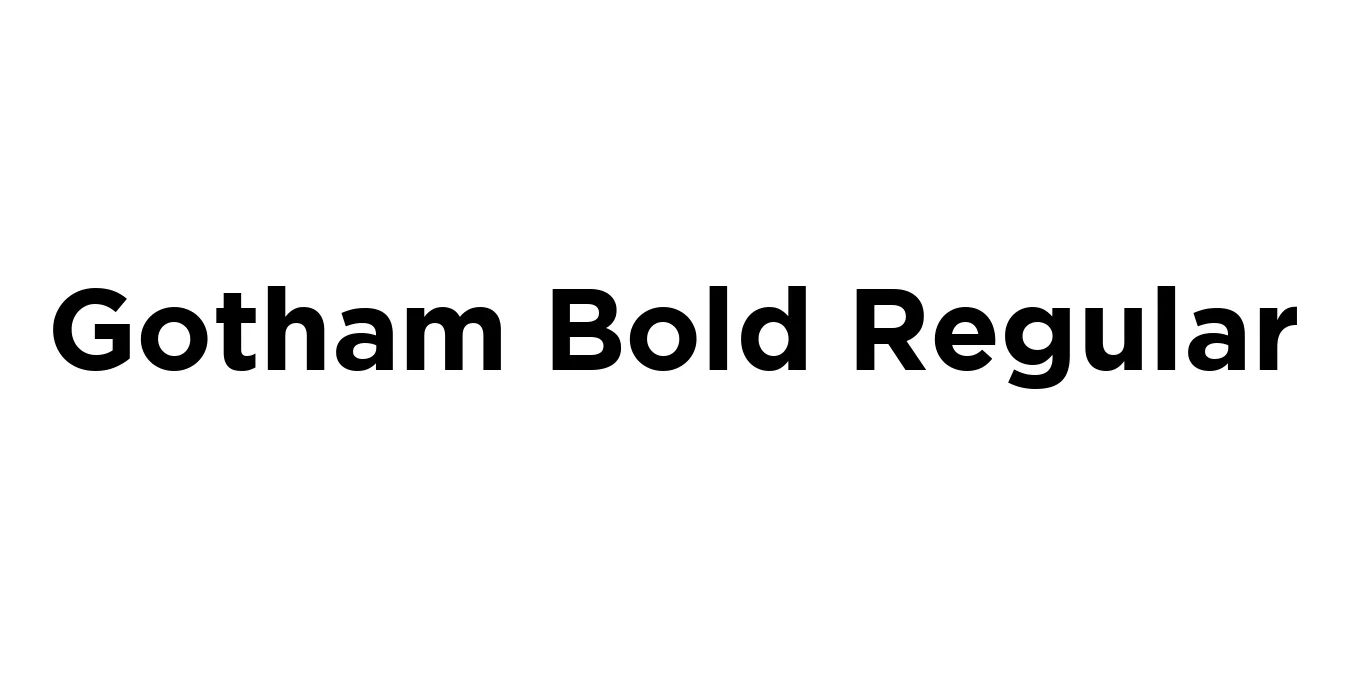
Gotham Bold Regular
Designed by Tobias Frere-Jones
| Font Name | Gotham Bold |
| Category | Geometric Sans-Serif |
| Designer | Tobias Frere-Jones |
Gotham Bold Regular was originally commissioned by GQ magazine and designed by the American type designer Tobias Frere-Jones in 2000. The font was inspired by the architectural signage and basic lettering found throughout New York City in the mid-20th century. It specifically draws from the vernacular signage seen on the Port Authority Bus Terminal, aiming to provide a voice that is both honest and authoritative while remaining distinctly modern.
The typeface gained global recognition during the 2008 Barack Obama presidential campaign, where its clean, geometric lines became synonymous with a message of change and hope. Today, Gotham is a staple in the design world, favored by major brands like Netflix and Spotify. The Bold weight is particularly valued for its balance of high visibility and sophisticated geometry, making it one of the most successful sans-serifs of the 21st century.
Gotham Bold Regular Best Uses
Perfect for creating powerful and legible titles in both print and digital layouts.
An excellent choice for logo design and corporate identity systems that require a professional look.
Widely used in magazines and advertising for its clean, contemporary aesthetic.
Highly readable for hero sections and UI elements on high-end websites.